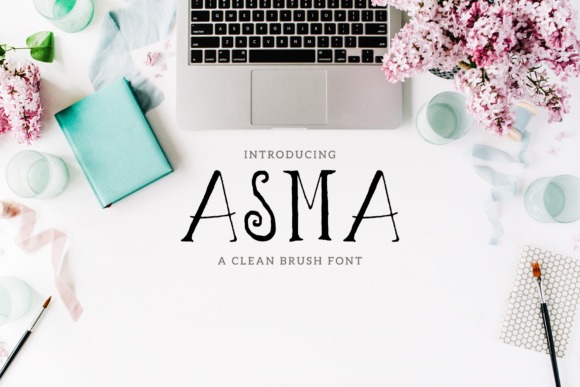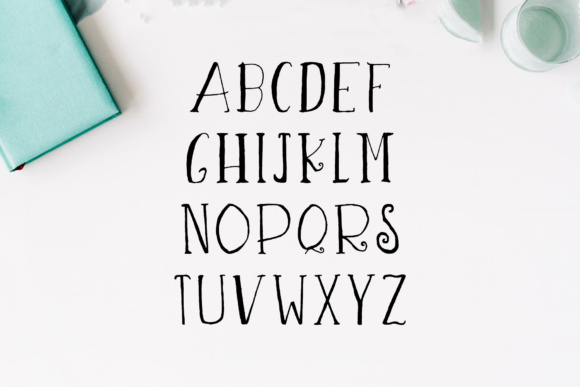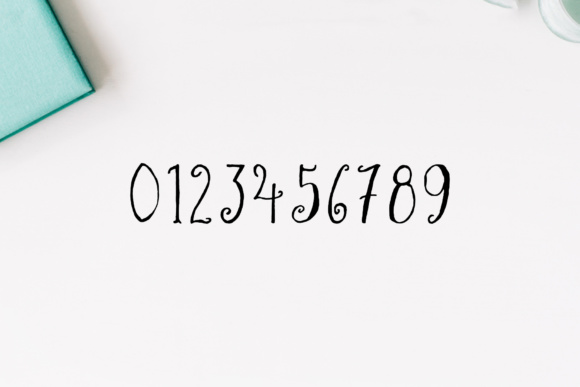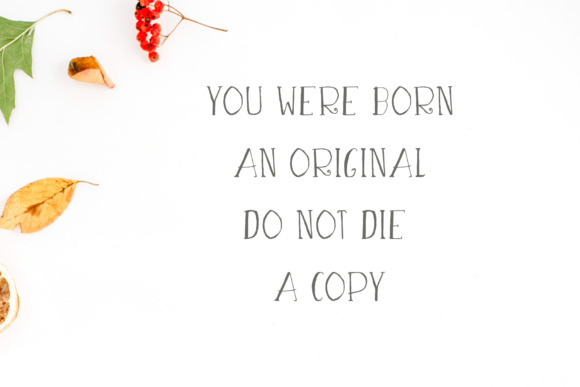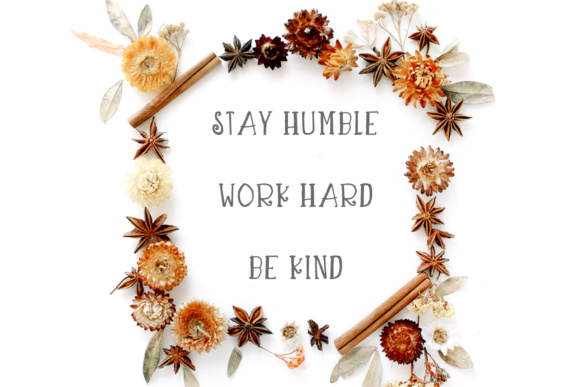
Asma Family Font
About Asma Family Font
Asma Script is a beautiful handwritten font which contains 3 weights. Asma is specifically designed for minimal projects. Asma can be used for various purposes such as: branding, websites, clean designs, logos, headlines, banners, templates and much more. It is in uppercase style only.